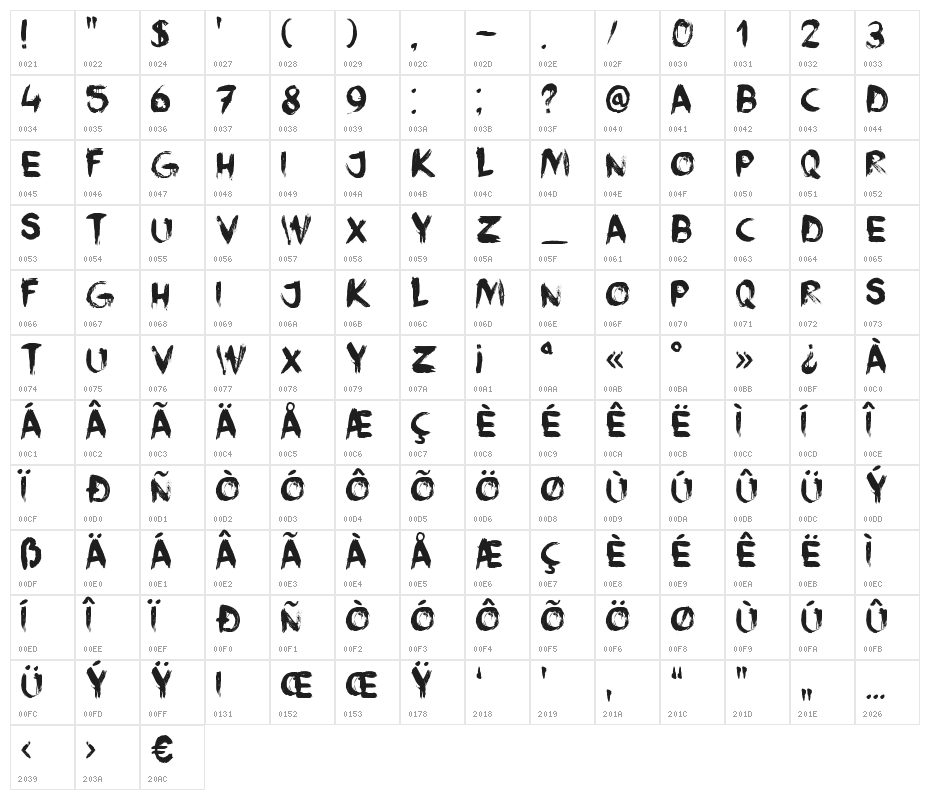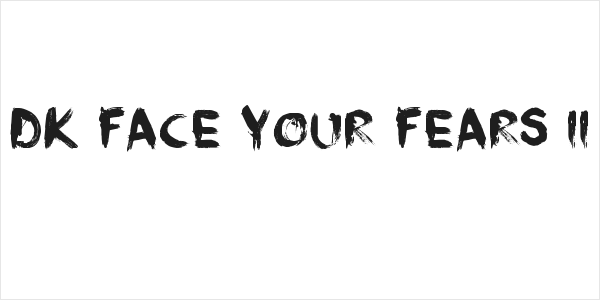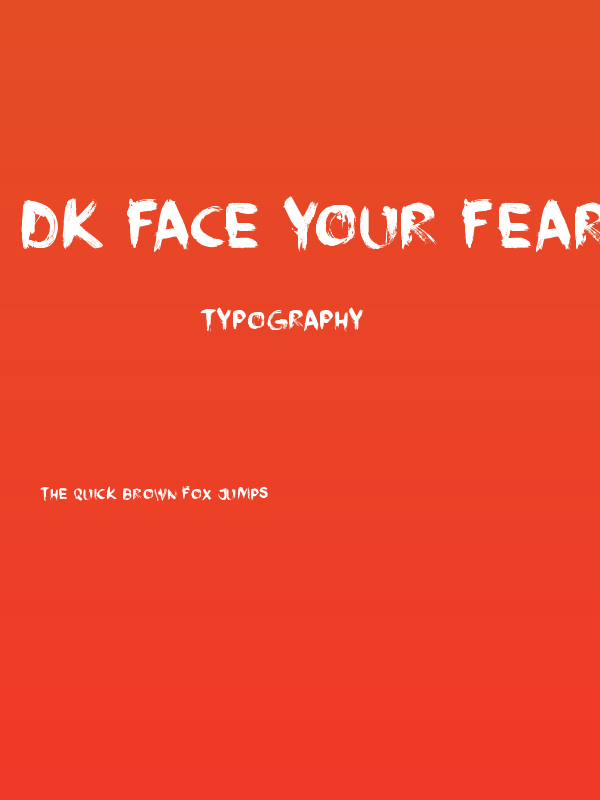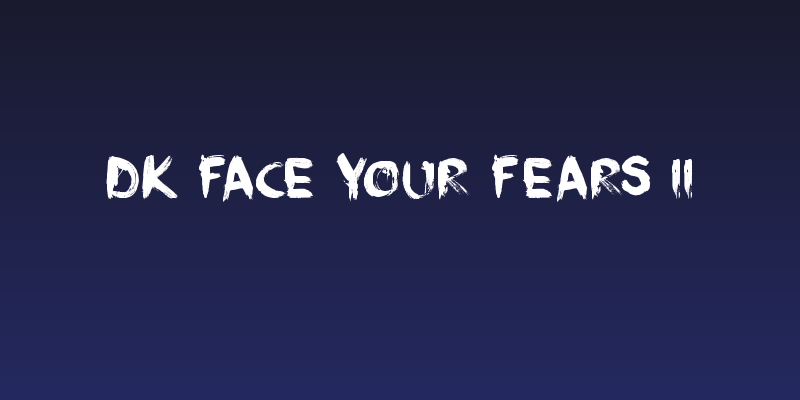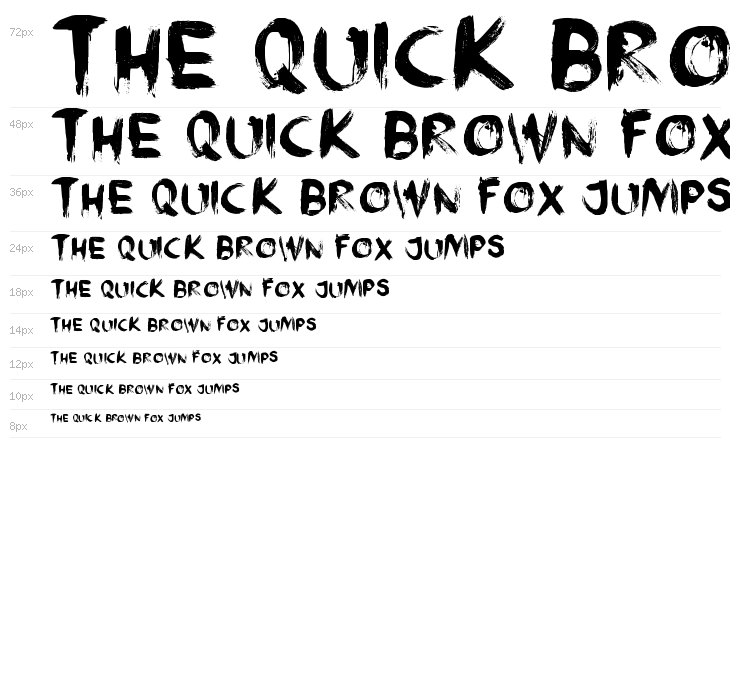
DK Face Your Fears II Font
DK Face Your Fears II Description
This font exudes a bold and intense energy, characterized by its brushstroke-like appearance. The letters are crafted with a rough, textured style that mimics the look of hand-painted strokes, giving it a raw and dynamic feel. Each character is unique, with varying thicknesses and irregular edges that add to its expressive nature. The font maintains a consistent height across all characters, ensuring readability while still embracing its artistic flair. This style is particularly striking in uppercase letters, where the boldness is most pronounced. The numbers and special characters follow the same aesthetic, providing a cohesive look throughout.
| Overall Style | Modern, Artistic |
| Proposed Projects | Ideal for horror-themed posters, edgy branding, album covers, and artistic projects requiring a dramatic flair. |